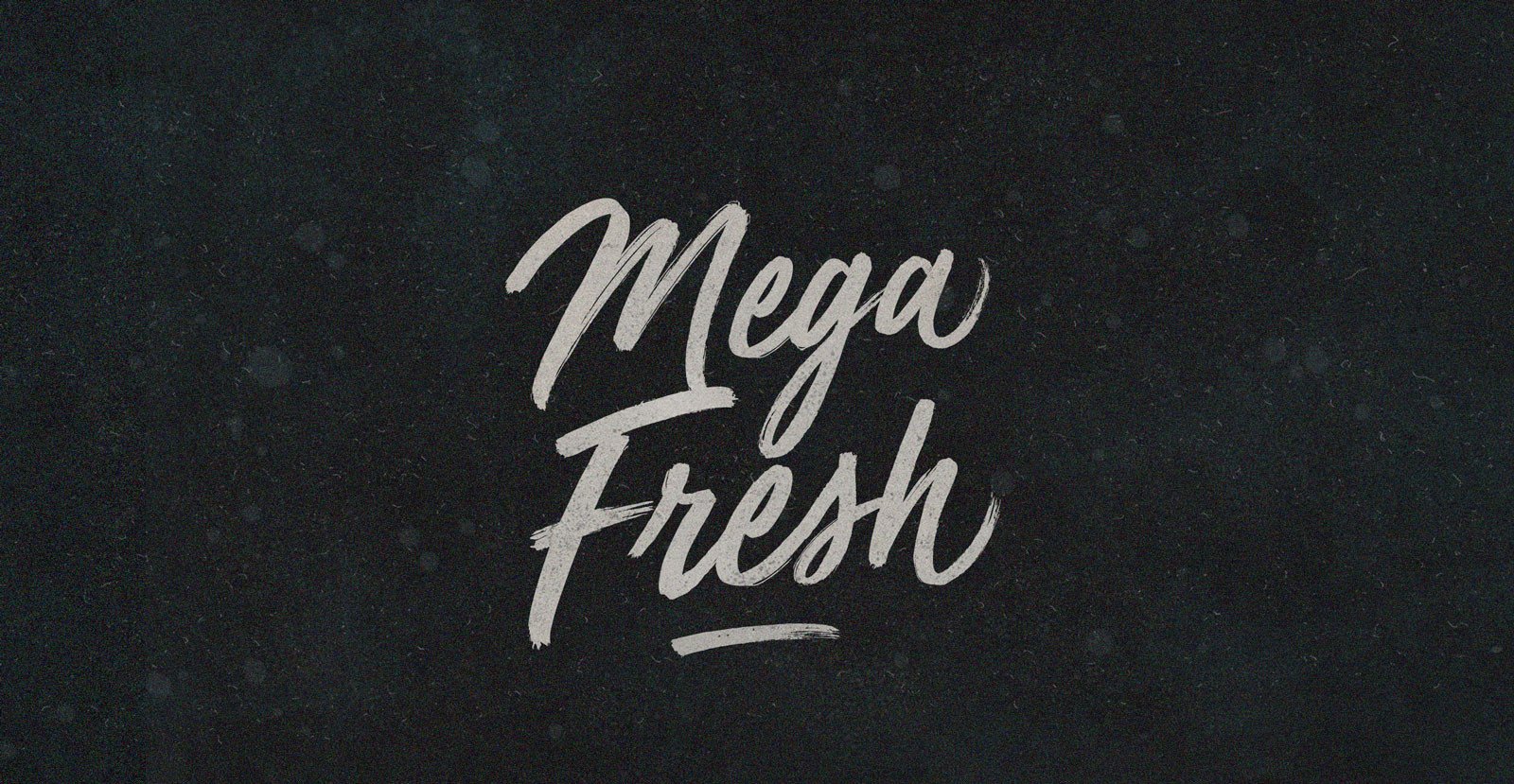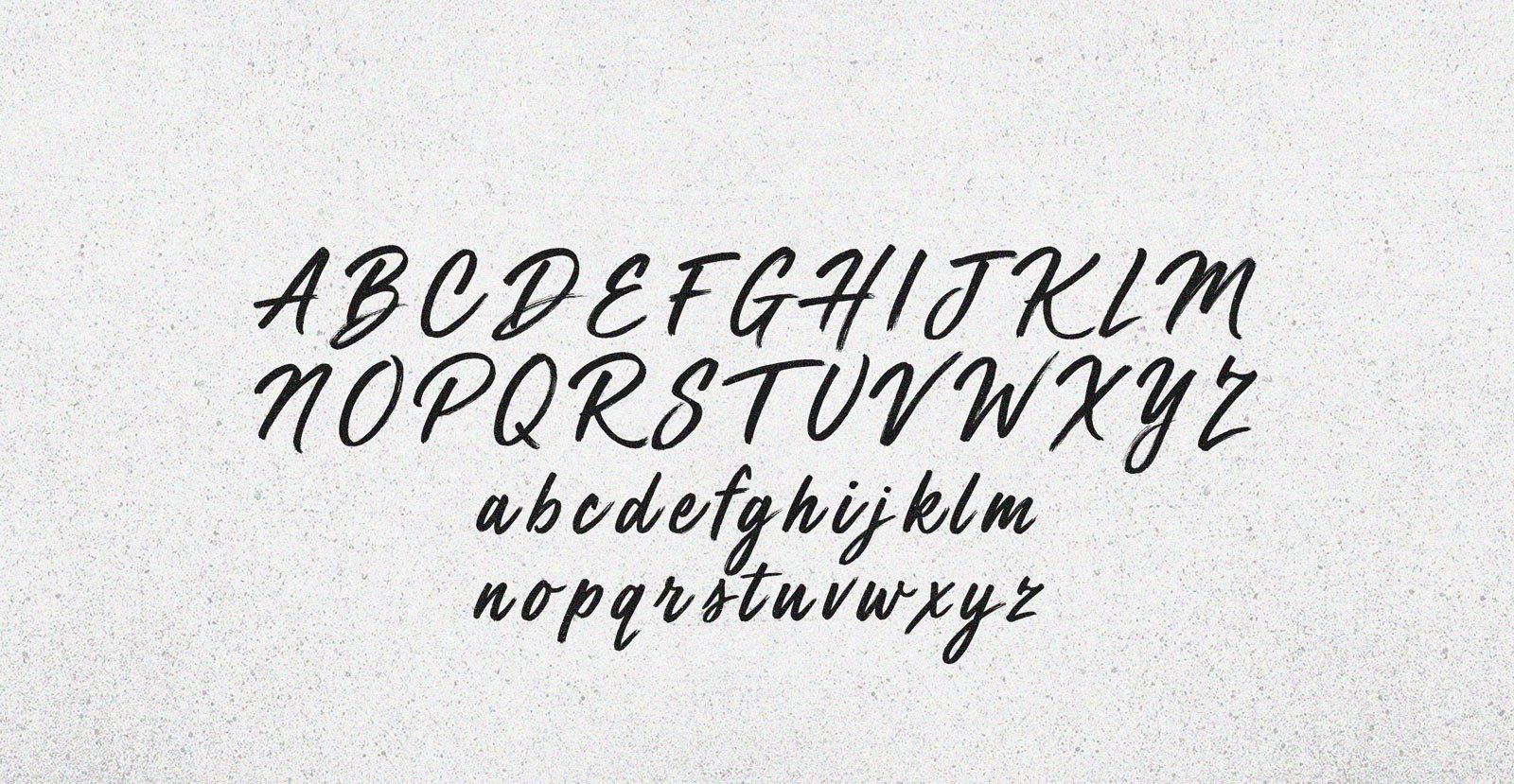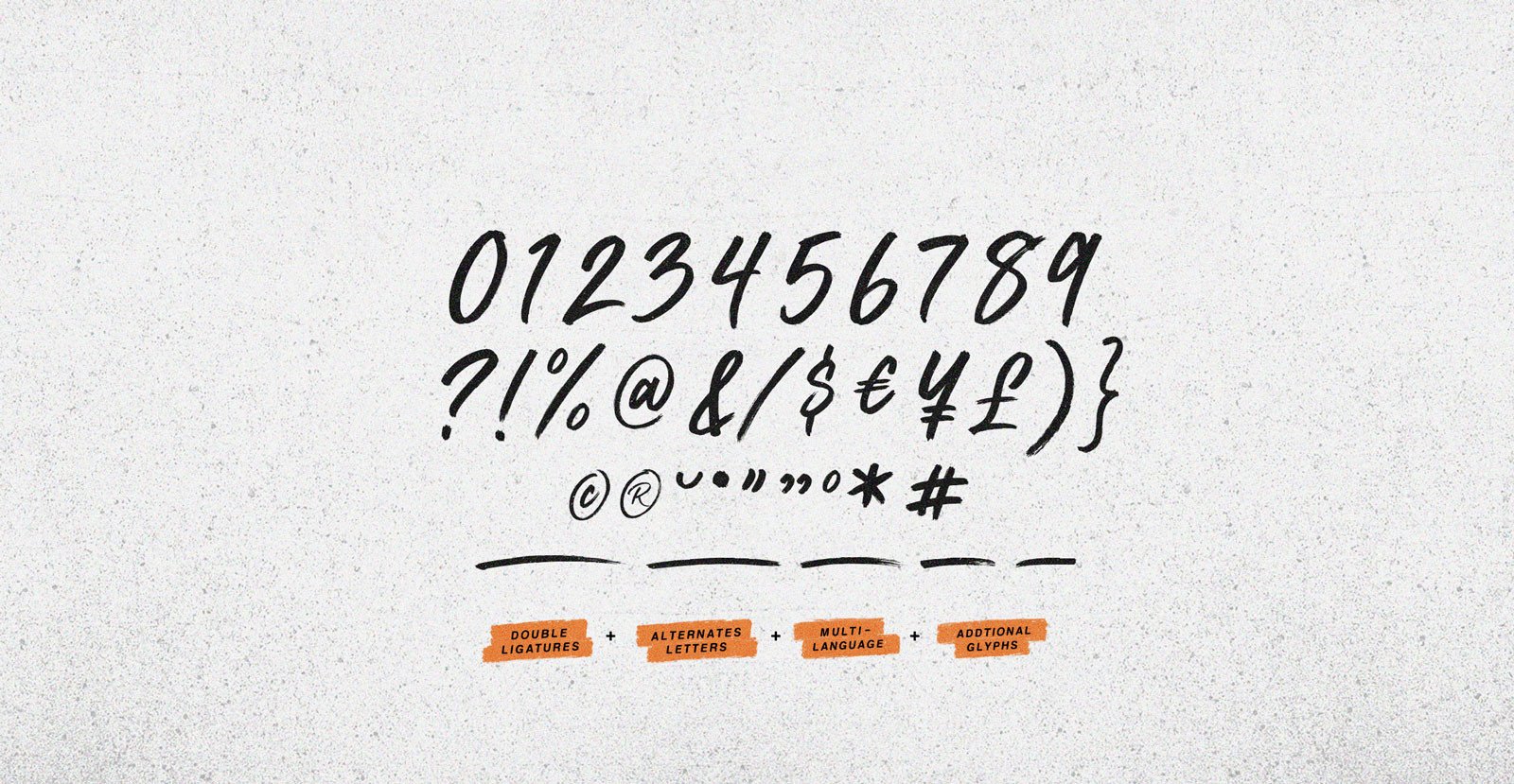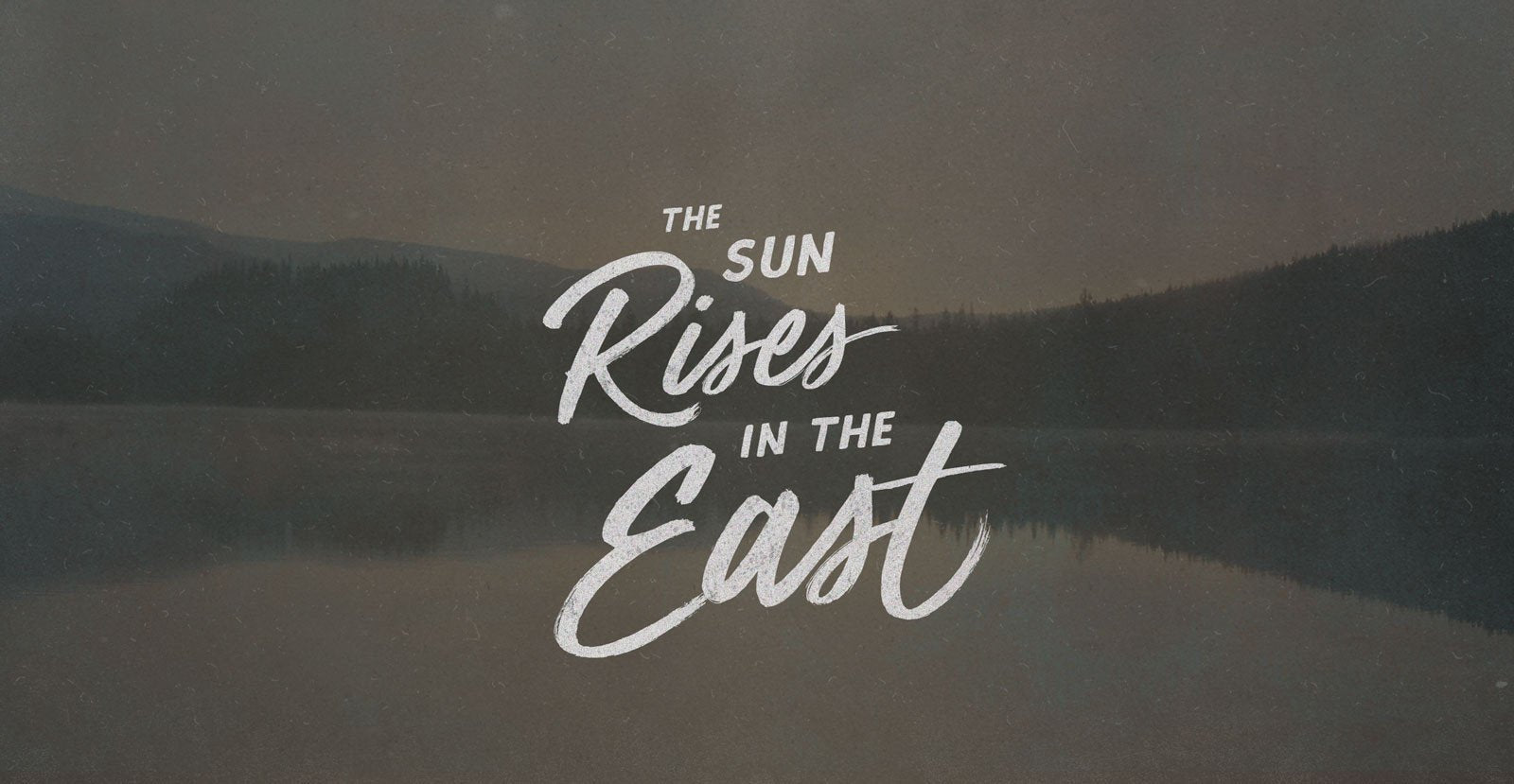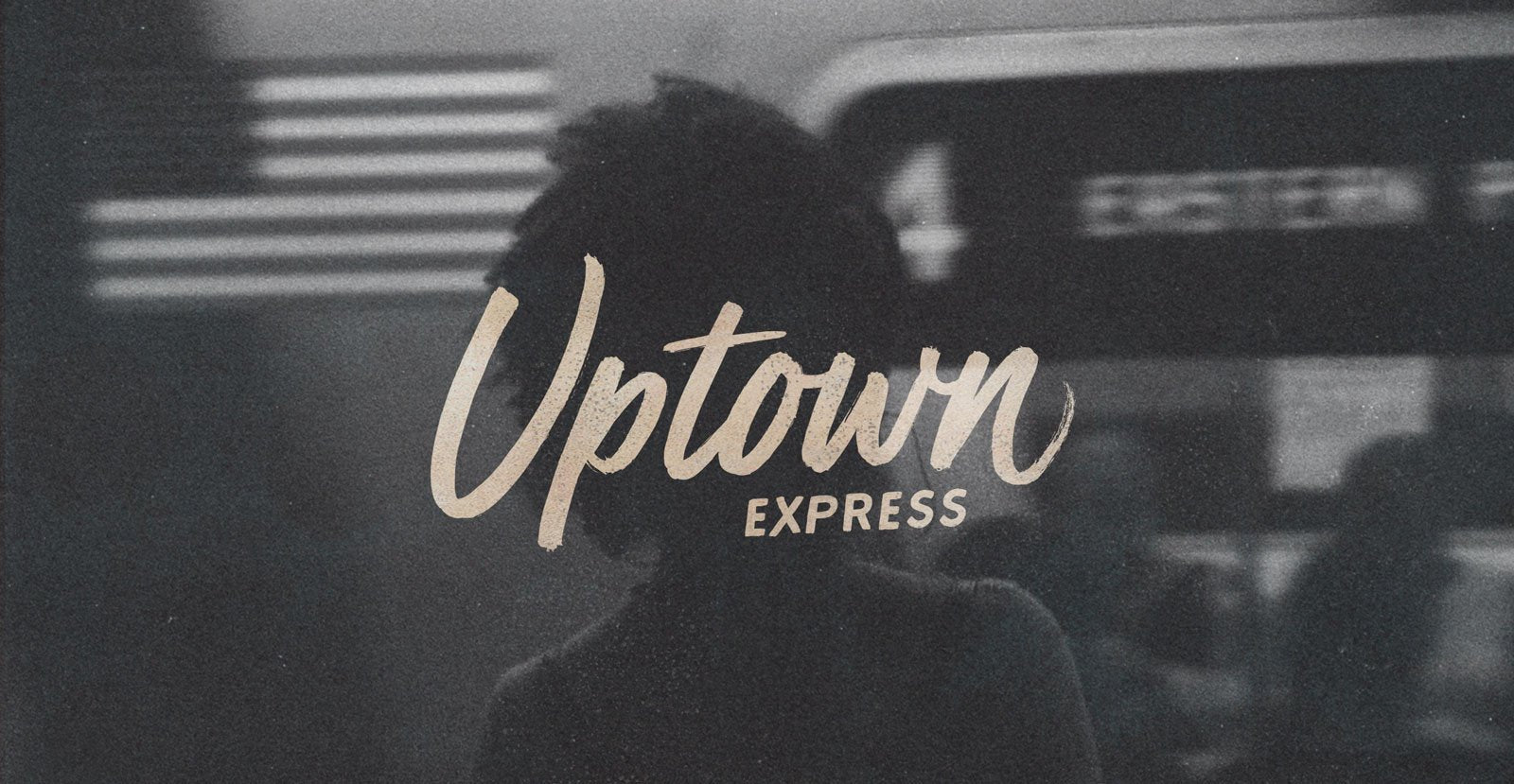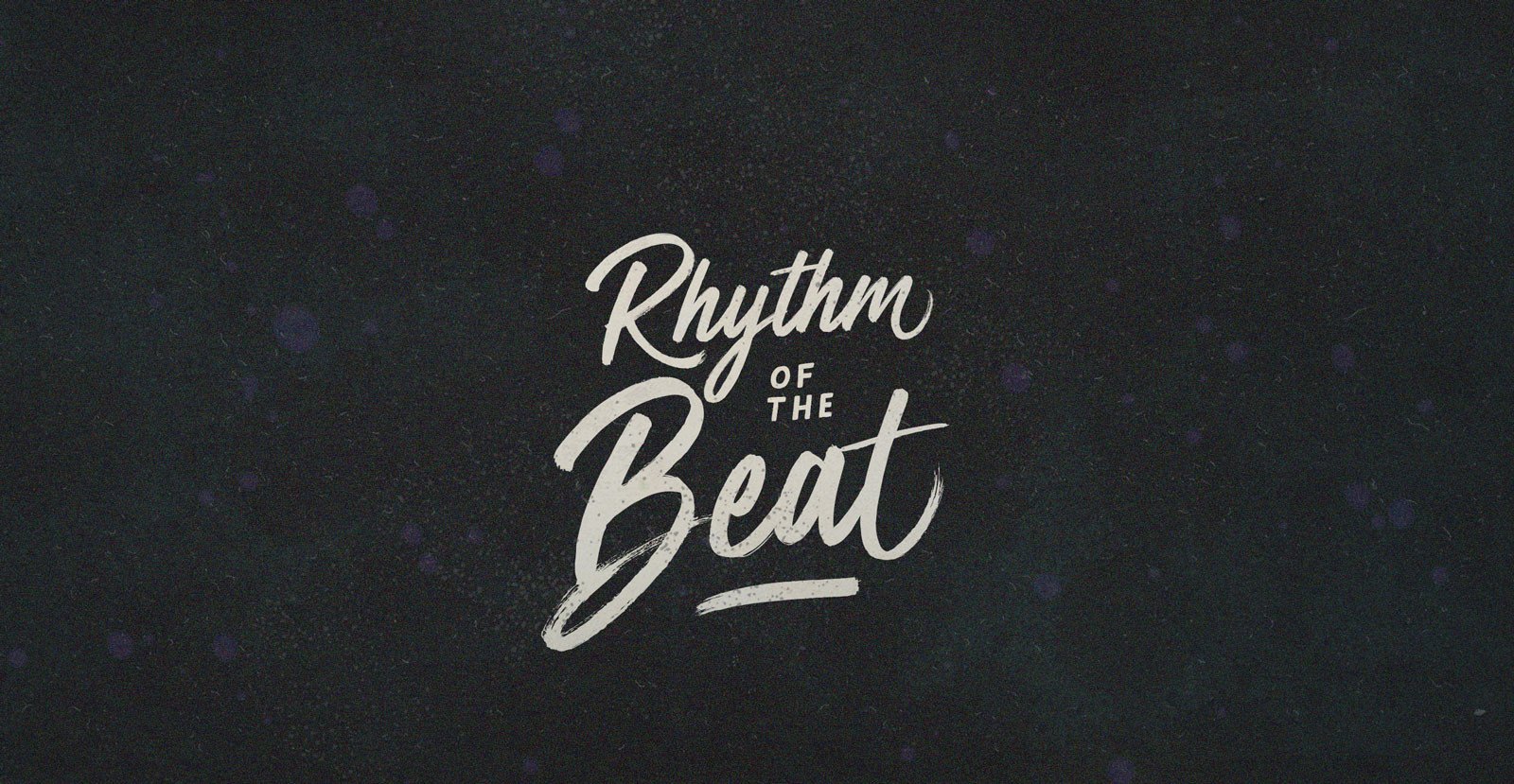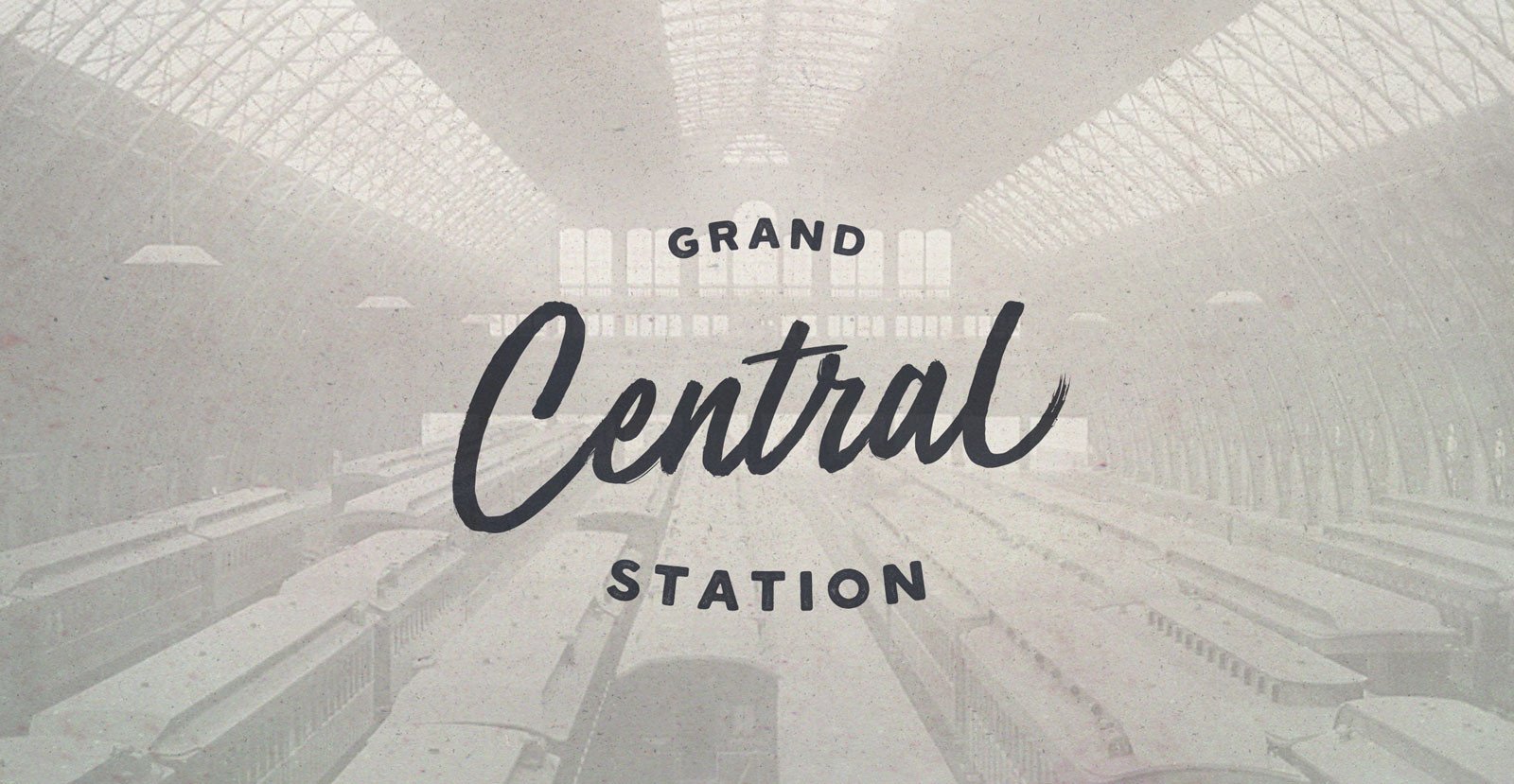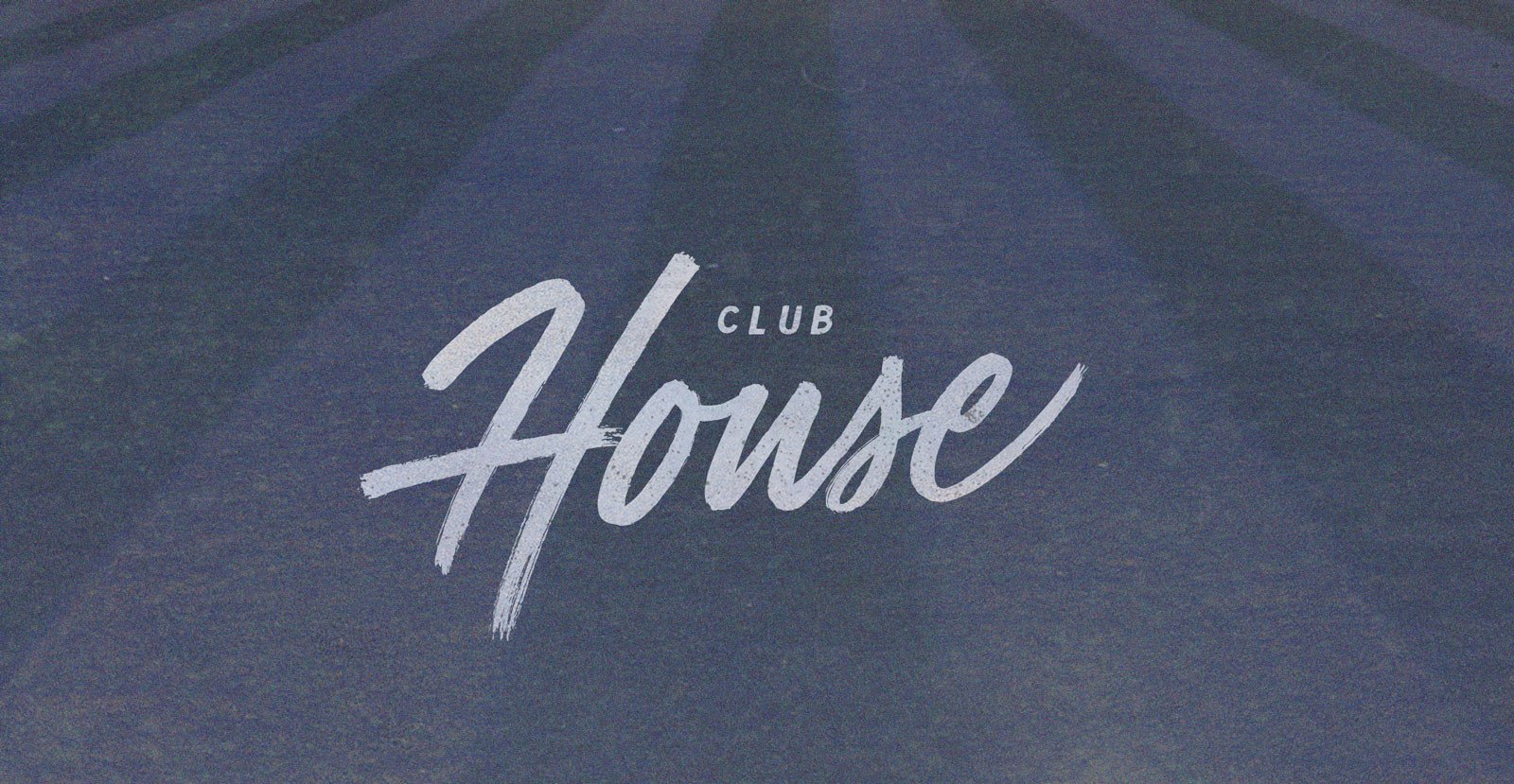
Mega Fresh
Mega Fresh like jumbo jets filled with chilled produce. Timely in its delivery, consistent in its shipment. Only the finest in climate controlled, carefully carried products—bruise free and photogenic—filling shelves around the planet.